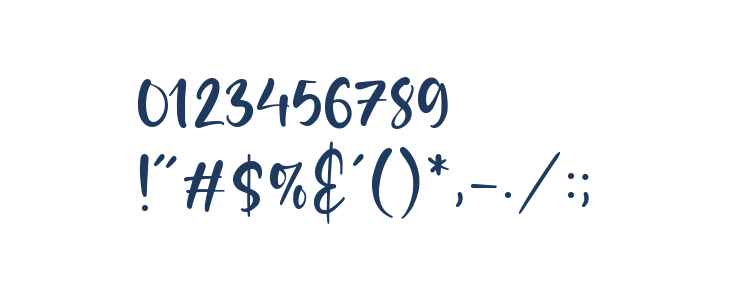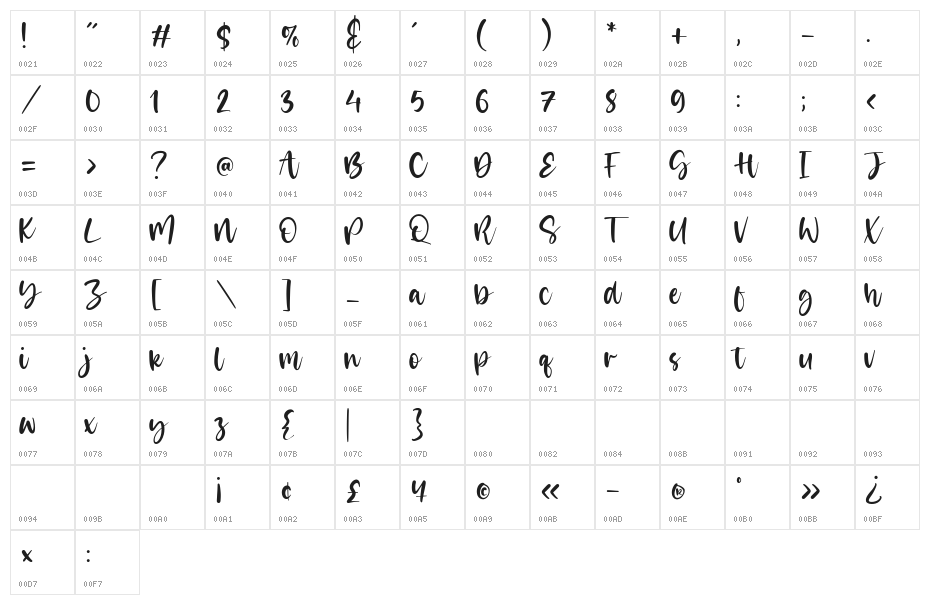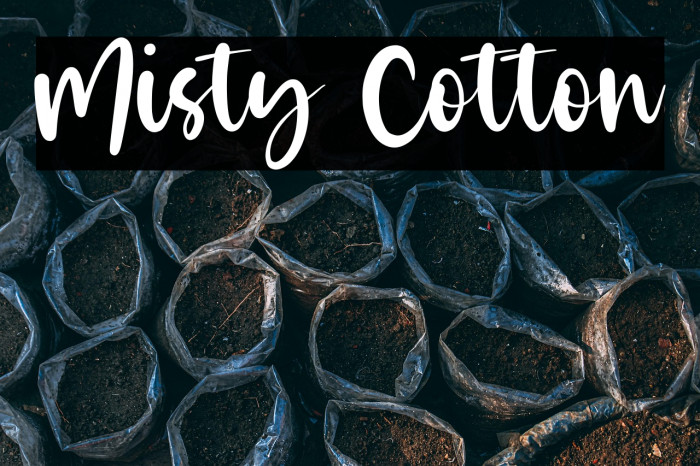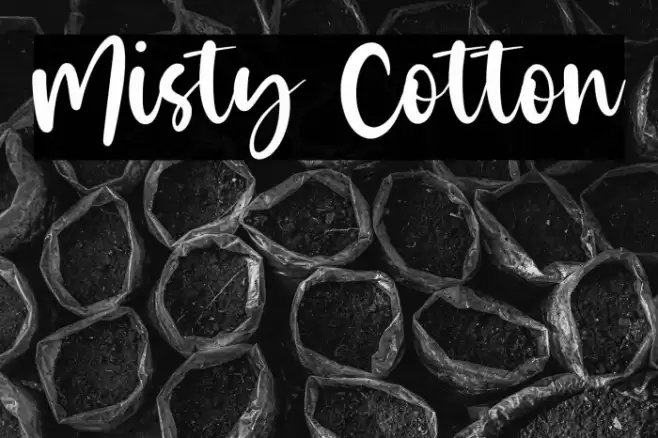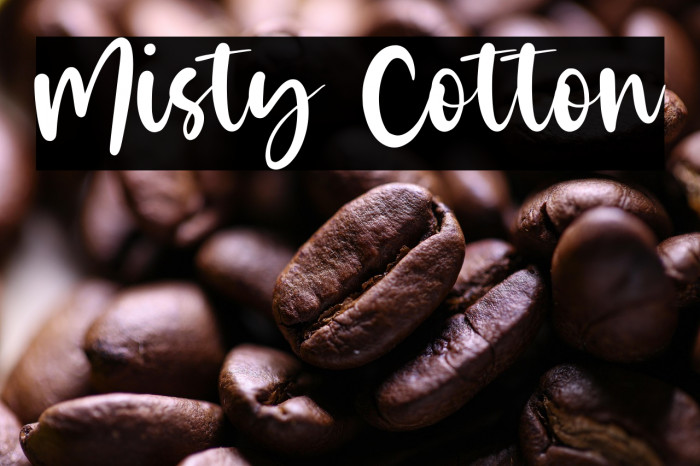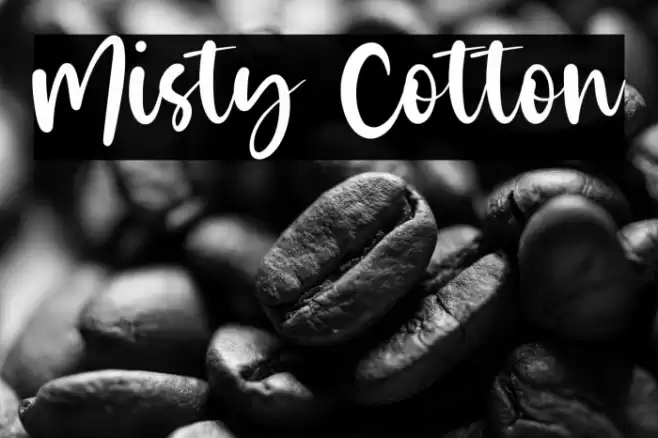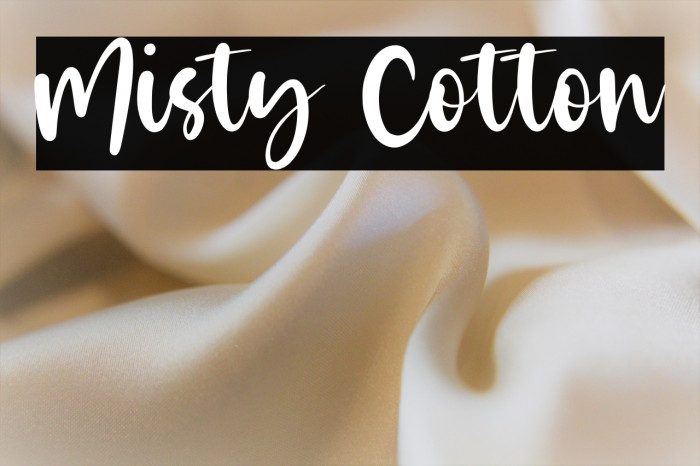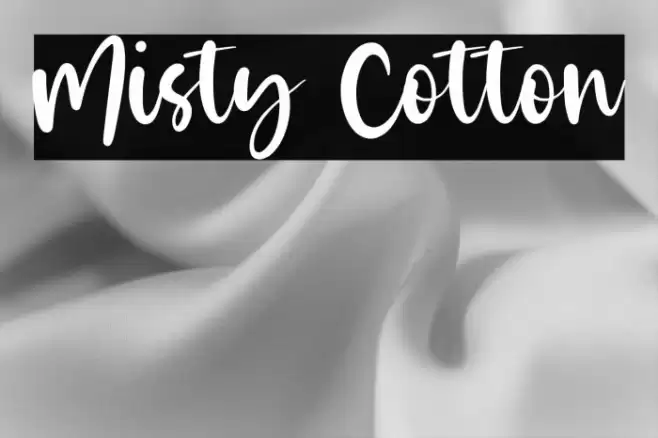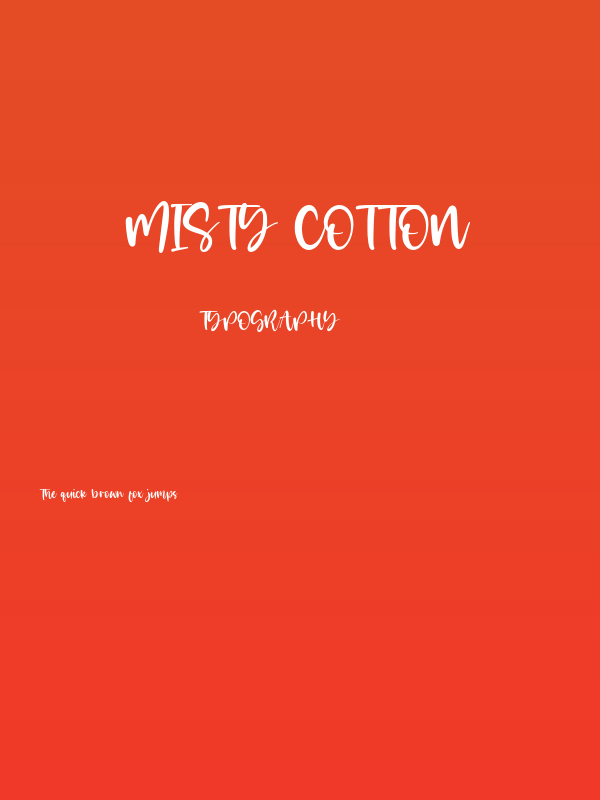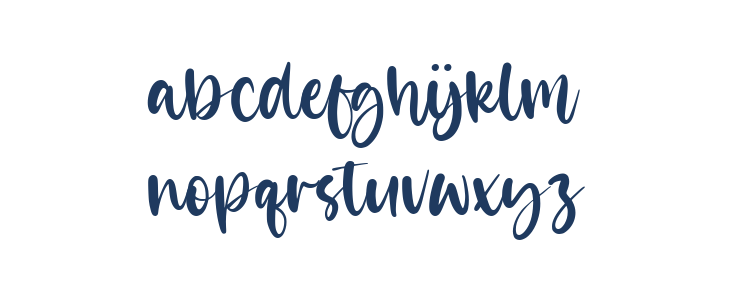
Misty Cotton Font
Misty Cotton Description
This font exudes a playful and energetic vibe with its bold, flowing script style. Each character is crafted with a sense of movement, featuring smooth curves and a slightly irregular baseline that adds to its charm. The uppercase letters are particularly striking, with their tall, sweeping forms, while the lowercase letters maintain a consistent rhythm, enhancing readability. The numbers and special characters are equally expressive, maintaining the font's lively aesthetic. This font is perfect for projects that require a personal touch, such as invitations, greeting cards, or branding materials that aim to convey warmth and creativity.
| Proposed Projects | Ideal for invitations, greeting cards, branding, and creative projects. |